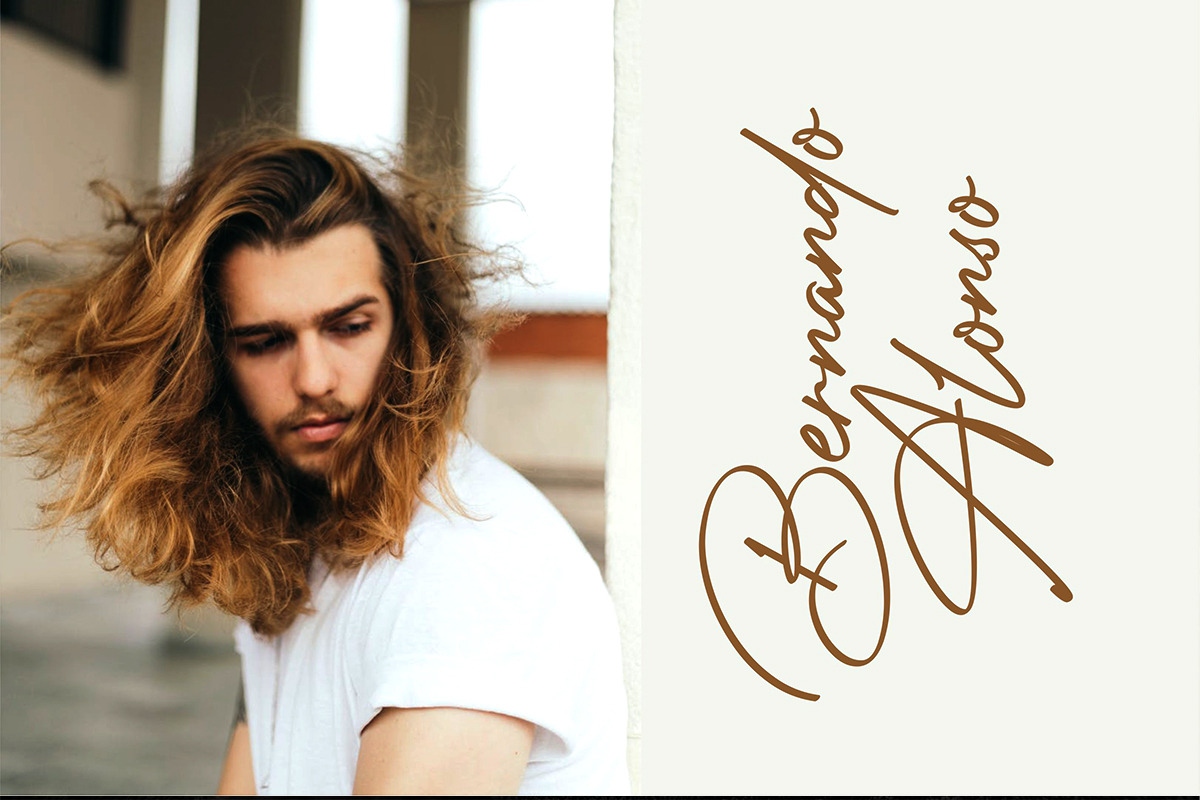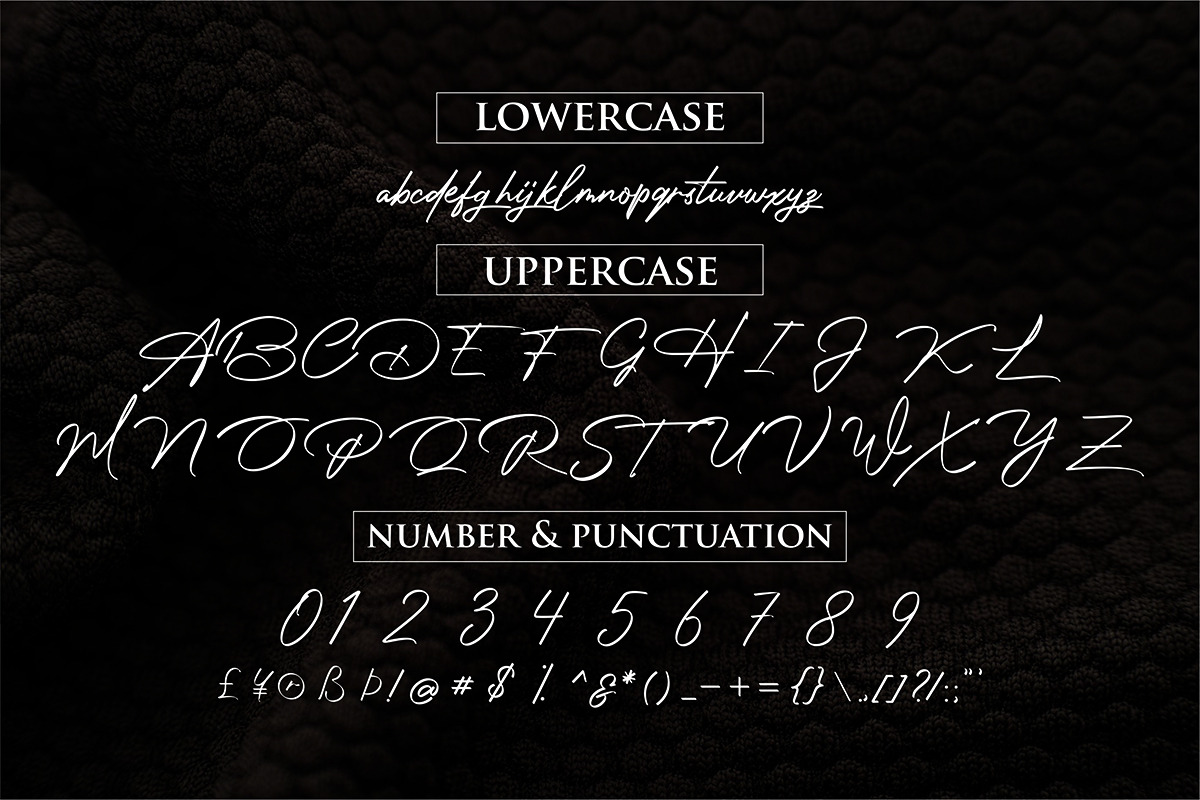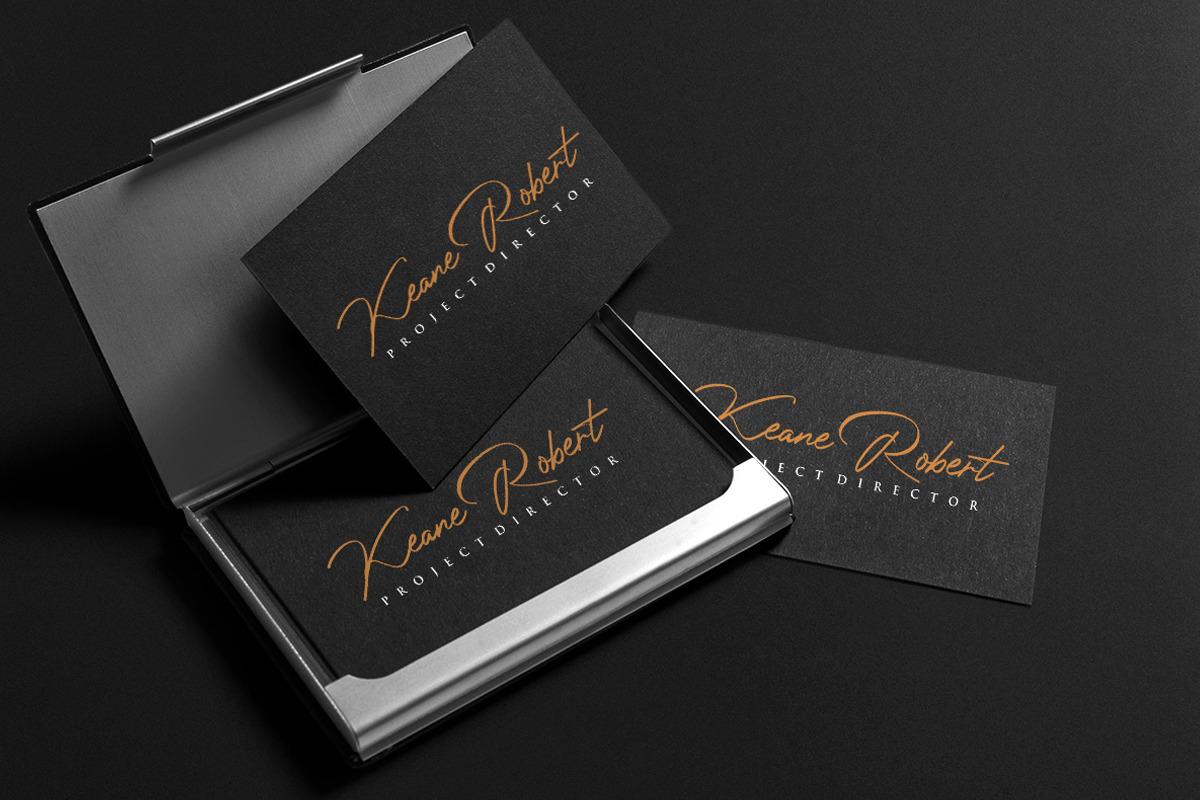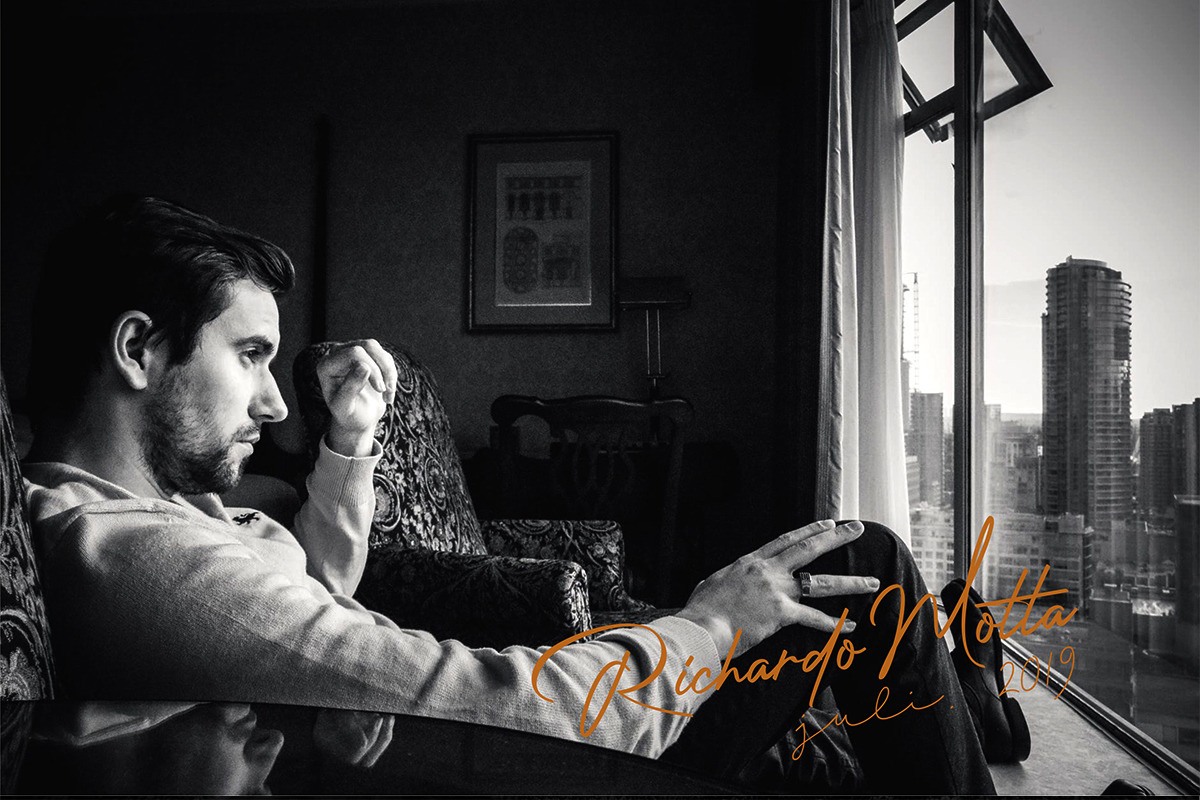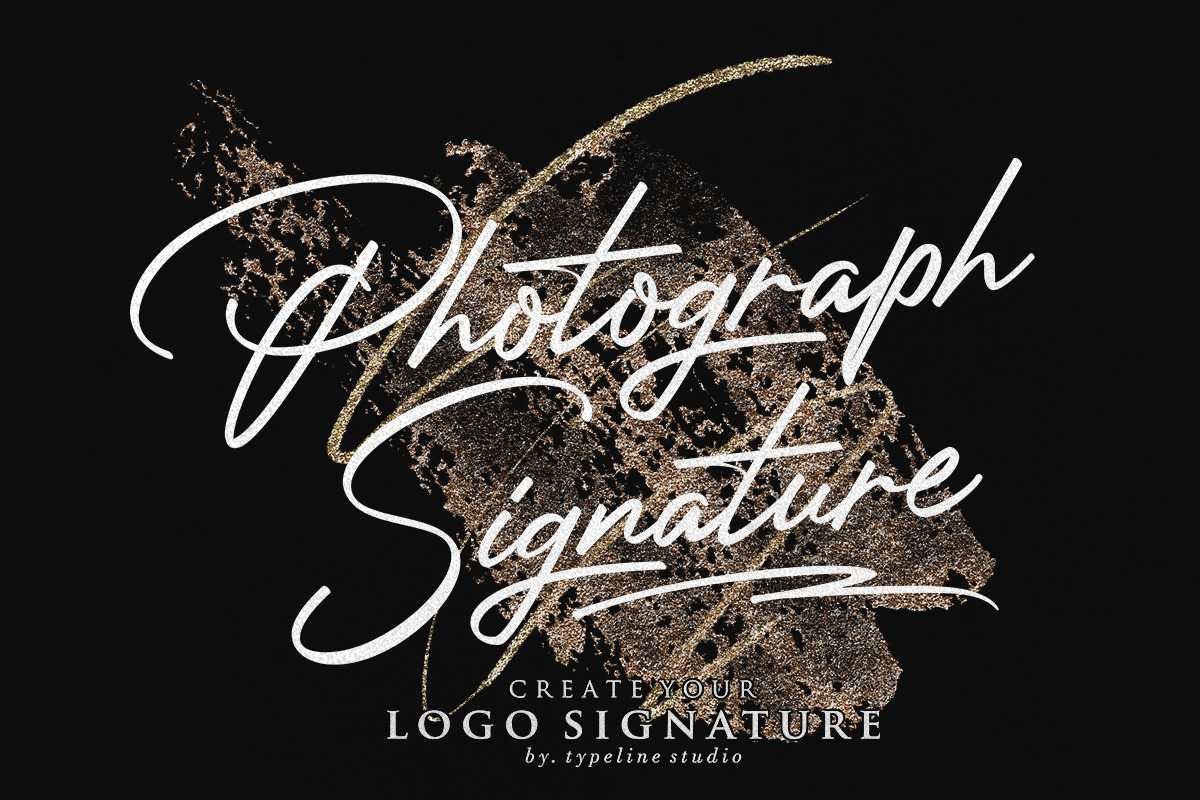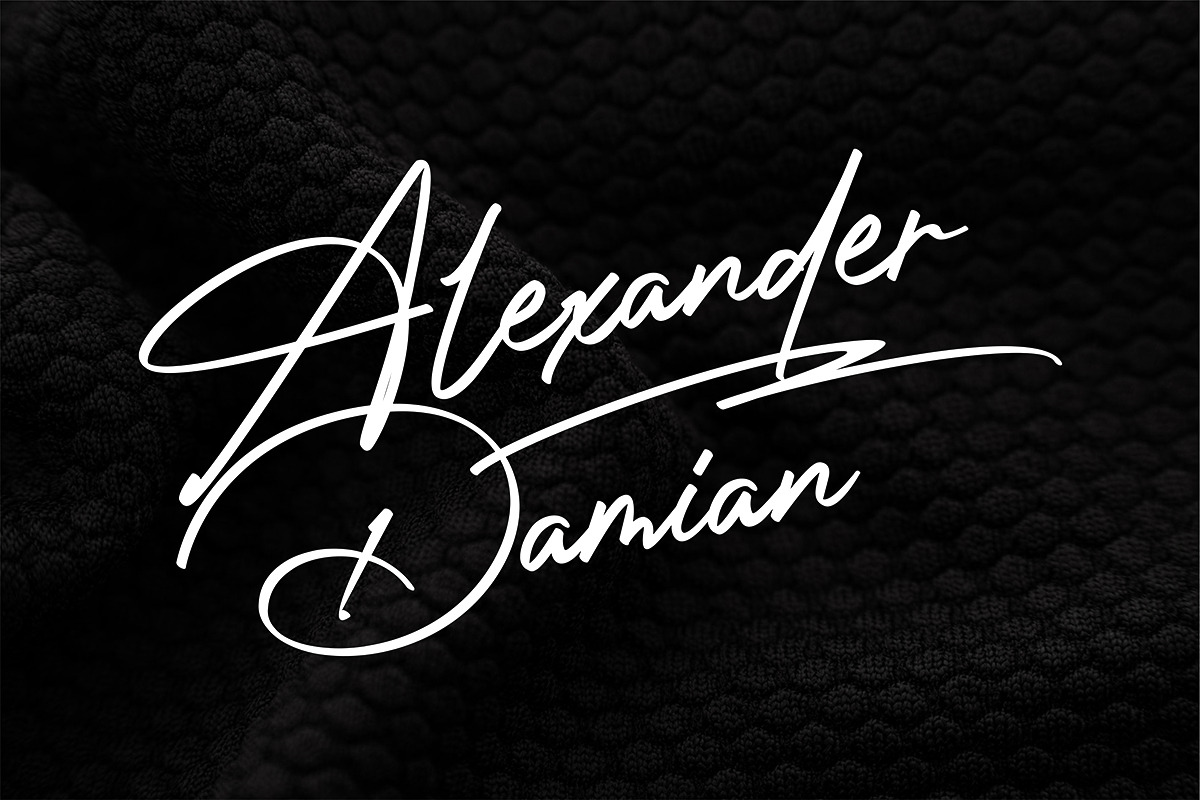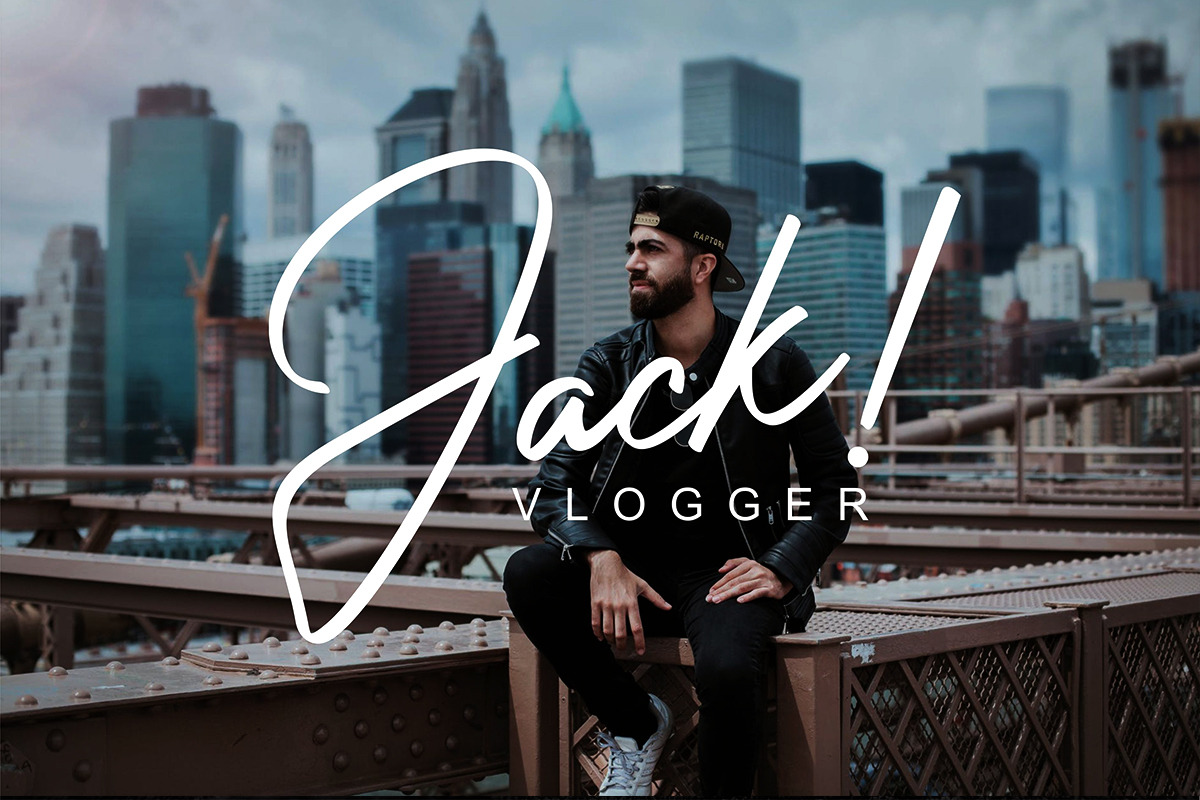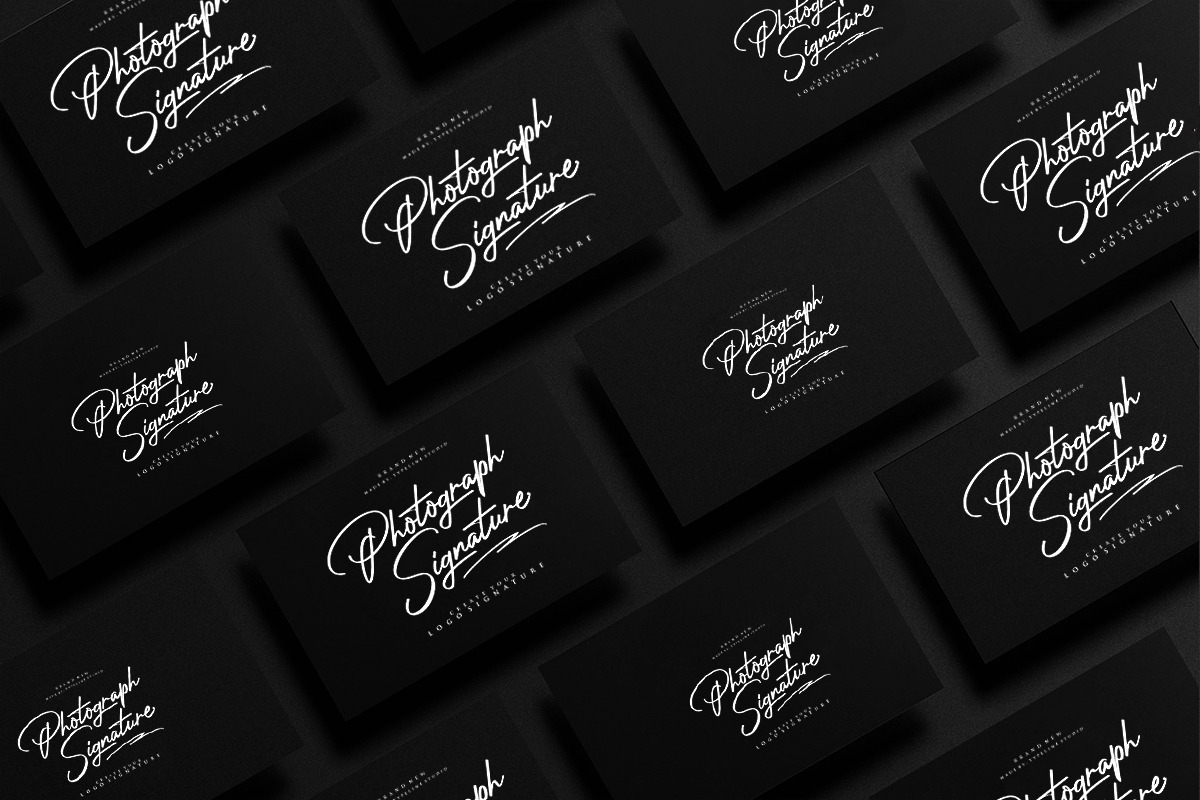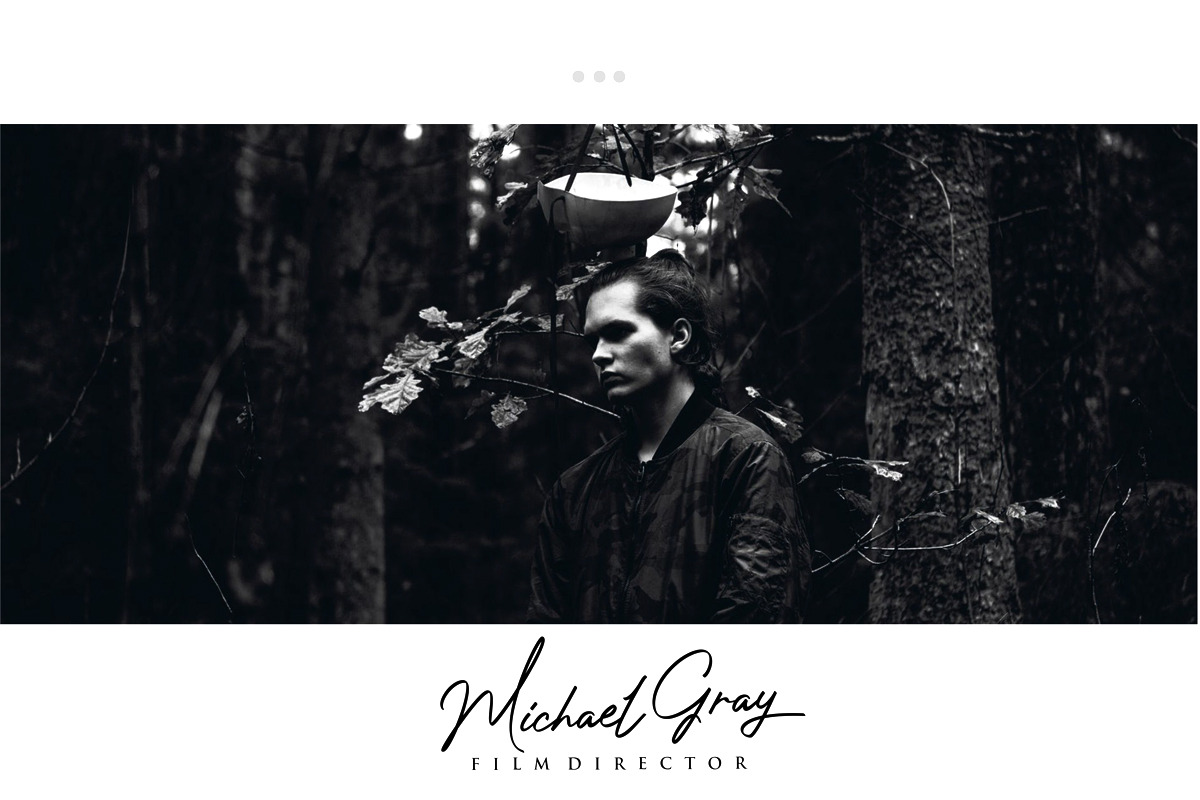
Photograph Signature Logo fonts
I introduced our newest product photograph signature font ,i hope this font perfect for creating signature logos or logo signature and watermarks for photography studio,personal or branding . I made it with a sense of elegant,professianal, and very catchy
You can try it first by typing the name you want below I make it so simple but has a very luxurious taste in it, this font has a lowercase alternative which is very similar to handwriting using a pen so it is suitable for signatures, logos, watermark photos, and many more.
just write you can create custom personal signature,create custom logo,so this amazing signature for you all.
maybe next I will make an italic or slant version if this font is much interested and can help many things you want for a signature, branding logo, or watermark.